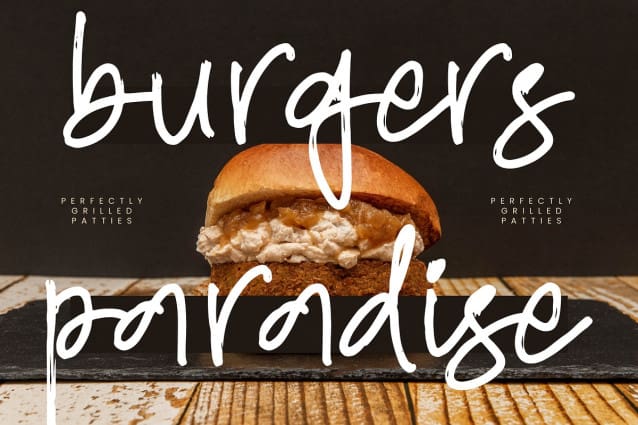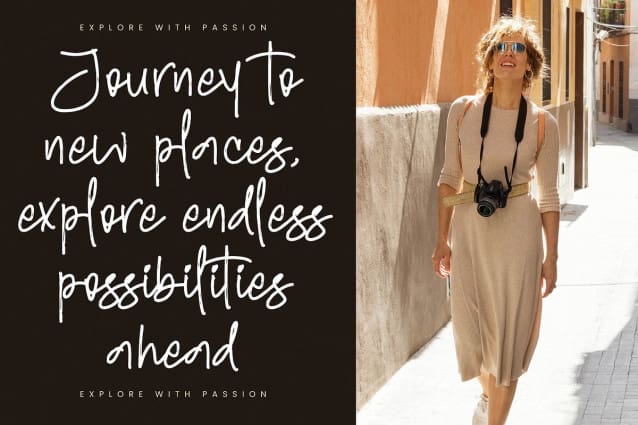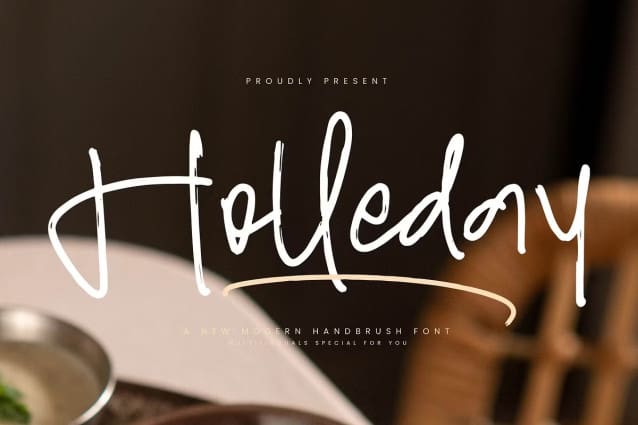
Holleday Font
Holleday Font – A New Modern Handbrush Font, from Integritype Studio, perfect for any project like: logos, branding projects, homewares designs, product packaging, mugs, quotes, posters, shopping bags, t-shirts, covers books, business cards, invitation cards, greeting cards, labels, photography, watermarks, special events and all your other luxury projects that require a premium taste.